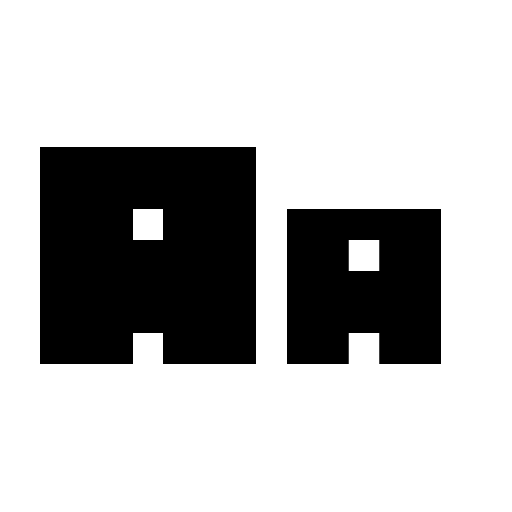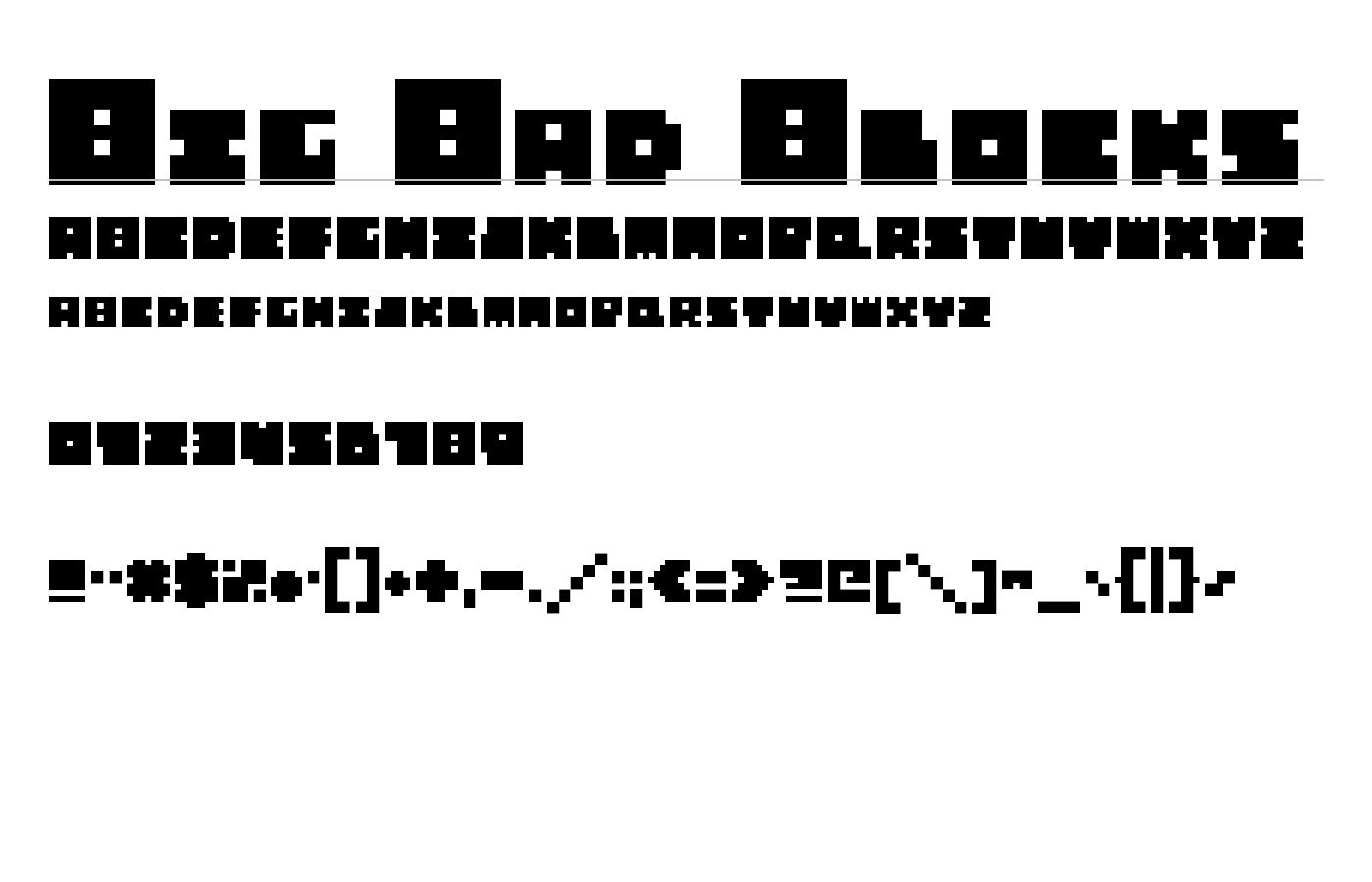
Big Bad Blocks is a bold, chunky sans serif font with a strong blocky appearance that evokes a retro, pixelated style reminiscent of early video games and digital displays. Its heavy weight, uniform stroke width, and geometric shapes make it ideal for eye-catching headlines, logos, and playful design projects that need a striking, modern-yet-nostalgic feel. This font works best in large sizes where its unique squared forms and compact letter spacing can shine without sacrificing readability.